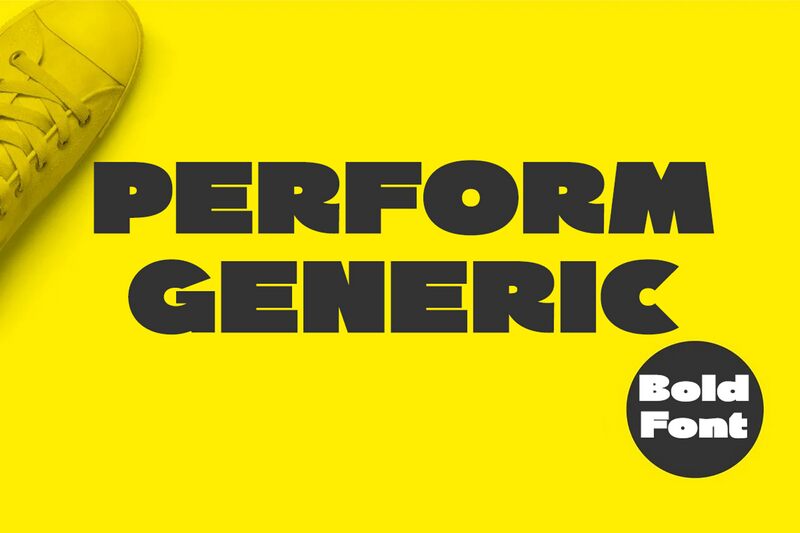
PERFORM GENERIC Regular
PERFORM GENERIC is an extra-bold, wide sans serif font designed by 177Studio.com. It's perfect for modern, eye-catching designs and works especially well for poster designs, product packaging, and logos.